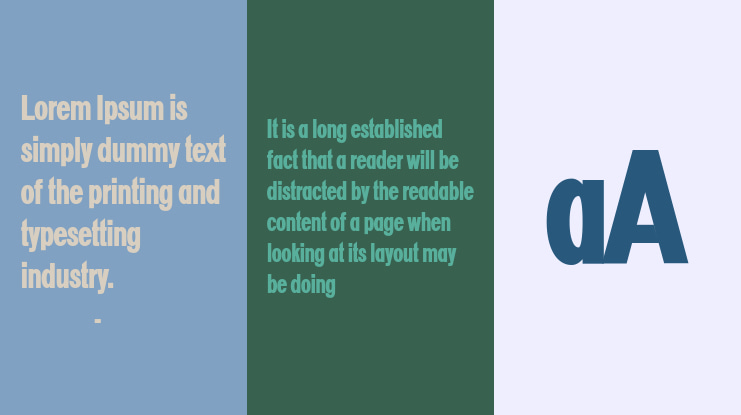
CINQ Font Family
🎨 Font Name: Cinq by Minimalist Art Studio
🎨 Font Description: Cinq is a clean sans serif with minimalist elegance and multilingual support, perfect for branding, lifestyle, and editorial design.
βœ” Complete Latin set + multilingual diacritics
βœ” Alternates, stylistic sets & ligatures
βœ” Numbers, small caps, and extended punctuation
βœ” Bonus italics and family styles